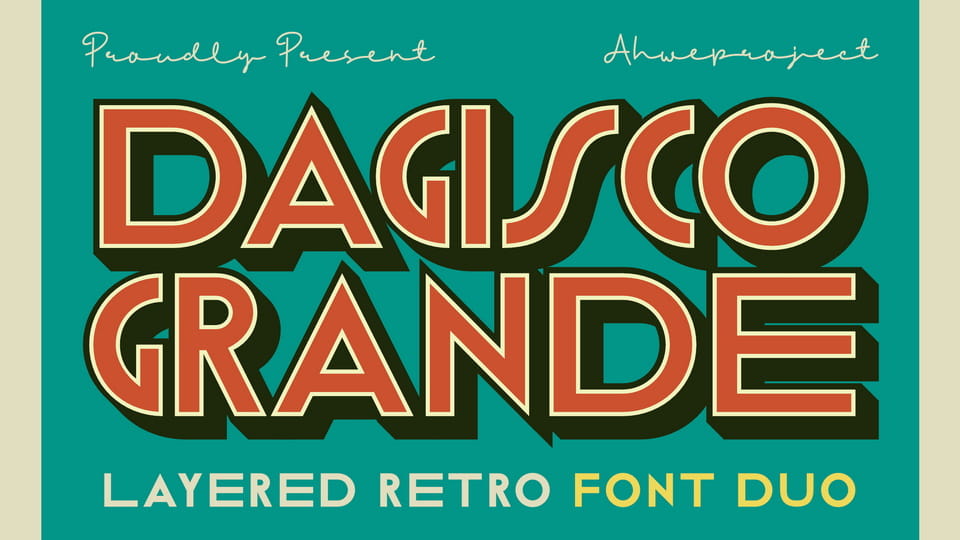
Download Dagisco Grande font, a unique typeface that combines a retro-style layered sans serif with an elegant signature script. Designed with the spirit of the vintage era yet crafted to stay relevant in modern design